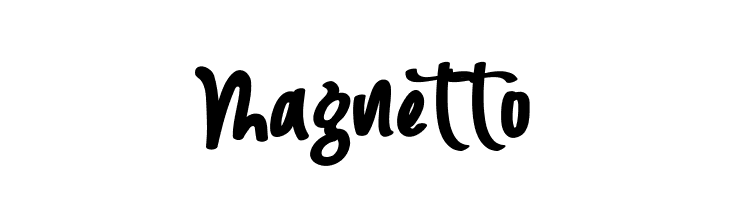
A playful, hand-drawn font with a magnetic drawing board style.
A bold, handwritten font with a playful and energetic style.
A bold, playful script font with a dynamic, handwritten style.
A playful and artistic script font with dynamic strokes.